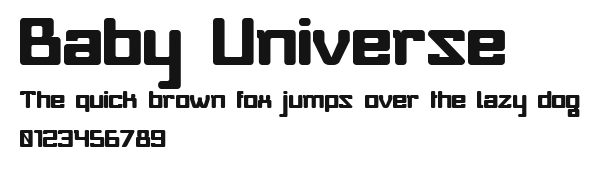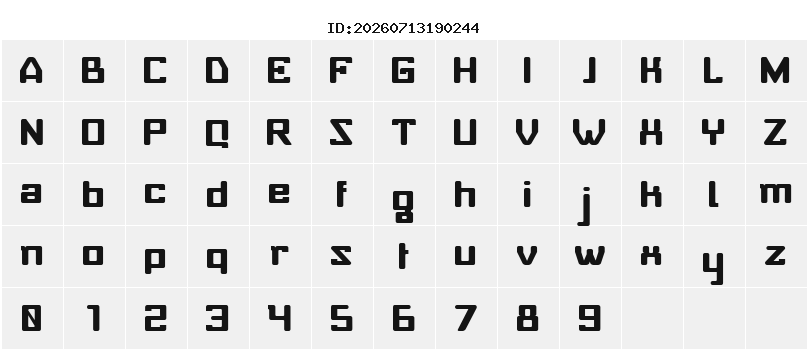
Baby Universe Preview
• Font Name: Baby Universe
• Full Font Name: Baby Universe
About Baby Universe.ttf
Baby Universe.ttf is a modern, elegant sans-serif font designed for ultimate readability and visual harmony. Perfect for branding, headlines, web design, and print materials.